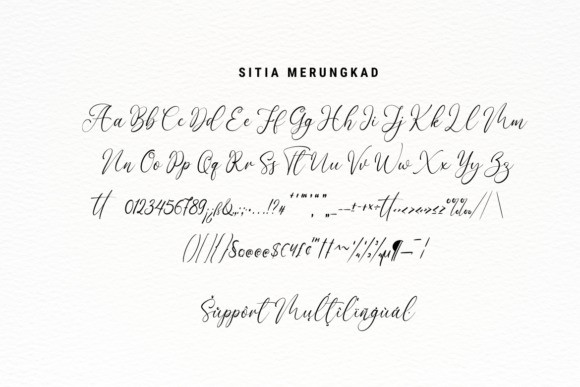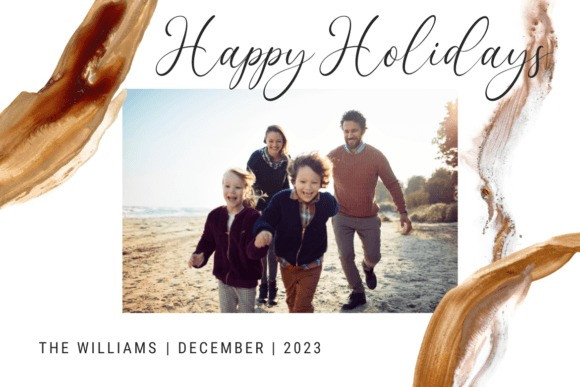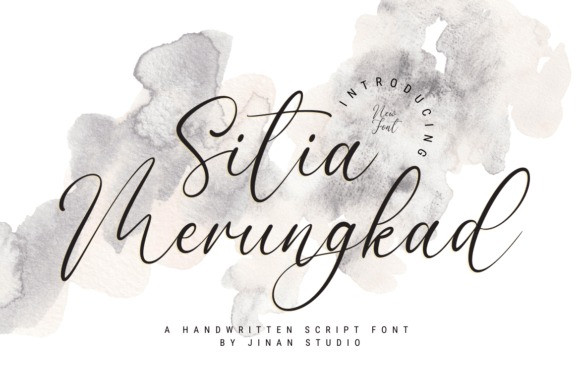
Sitia Merungkad Font
Sitia Merungkad Script Font is a lovely, stylish, and greatly detailed handwritten font. Very suitable for all your lovely projects such as Valentine’s theme designs, wedding invitations, photography, logos, and more. This font will guarantee a romantic touch to each of your creations!